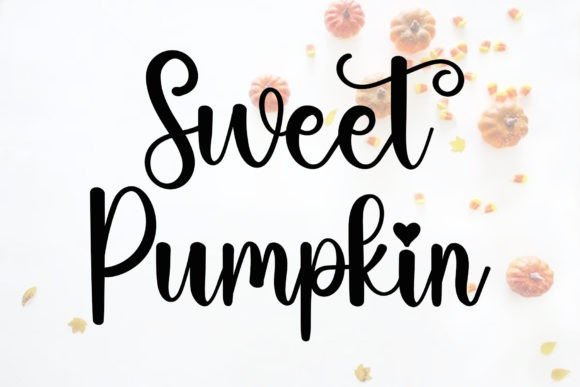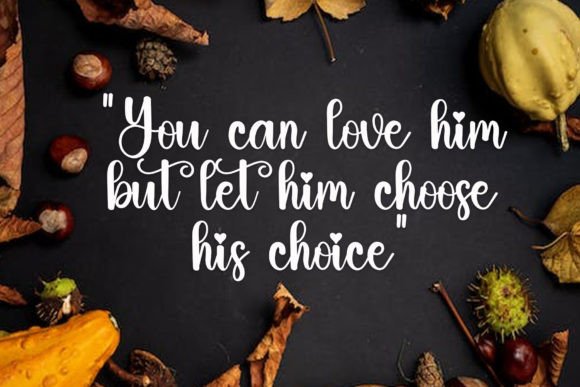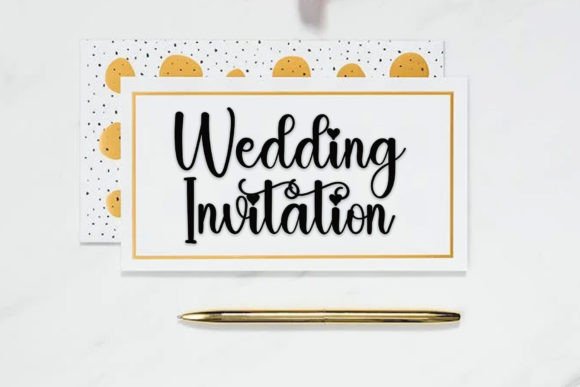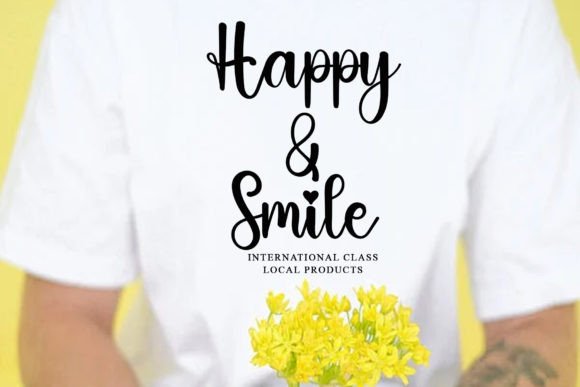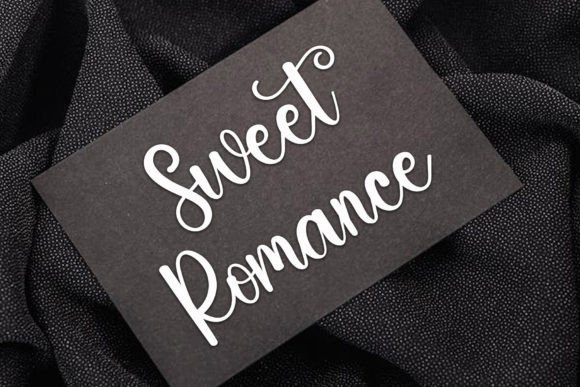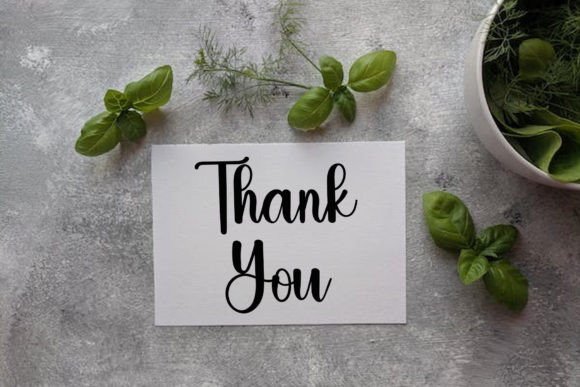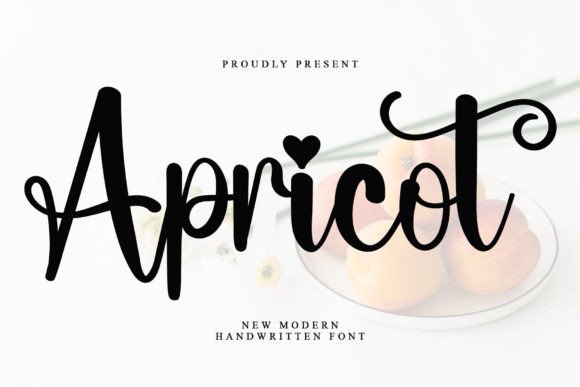
The Magic of Apricot Font: Elevate Your Designs with Elegance
I’ll never forget the moment I stumbled upon the perfect font for a client’s wedding invitation project. I had spent hours scouring the internet, trying out different fonts, but nothing seemed quite right. That was until I discovered Apricot Font – a beautiful, handwritten script that added a touch of elegance to the entire design. In this article, I’ll share my experience with Apricot Font, its features, and how to make the most of it in your designs.
A Personal Review of Apricot Font
As a designer, I’m always on the lookout for fonts that can help me create stunning visuals. Apricot Font has quickly become one of my go-to fonts, and here’s why:
• ✨ Elegant and Refined: Apricot Font has a sophisticated feel to it, making it perfect for projects that require a touch of luxury.
• ✅ Highly Versatile: This font can be used for a wide range of projects, from Instagram posts to calligraphy scripts for DIY projects.
• 💫 Unique Character: Apricot Font has a distinct personality that sets it apart from other handwritten fonts.
However, like any font, Apricot Font isn’t perfect. Here are a few quirks to keep in mind:
• ⚠️ Limited Use in Small Sizes: Apricot Font can be a bit tricky to read in small sizes, so it’s best to use it for headlines or larger text.
• 🤔 Occasional Kerning Issues: As with any font, there may be some kerning issues, especially when using it with other fonts.
The Story Behind Apricot Font
Apricot Font was created by a talented type designer who’s passionate about crafting unique, elegant fonts. The story goes that the designer was inspired by the beauty of apricots – their vibrant color and delicate texture. The result is a font that’s both refined and playful.
Font Name Apricot Font
Author PiPi Creative
What is Apricot Font best used for? Apricot Font is perfect for projects that require a touch of elegance, such as wedding invitations, branding materials, and social media graphics.
Is Apricot Font suitable for body text? While Apricot Font is beautiful, it’s best used for headlines or larger text. For body text, a clearer font may be more suitable.